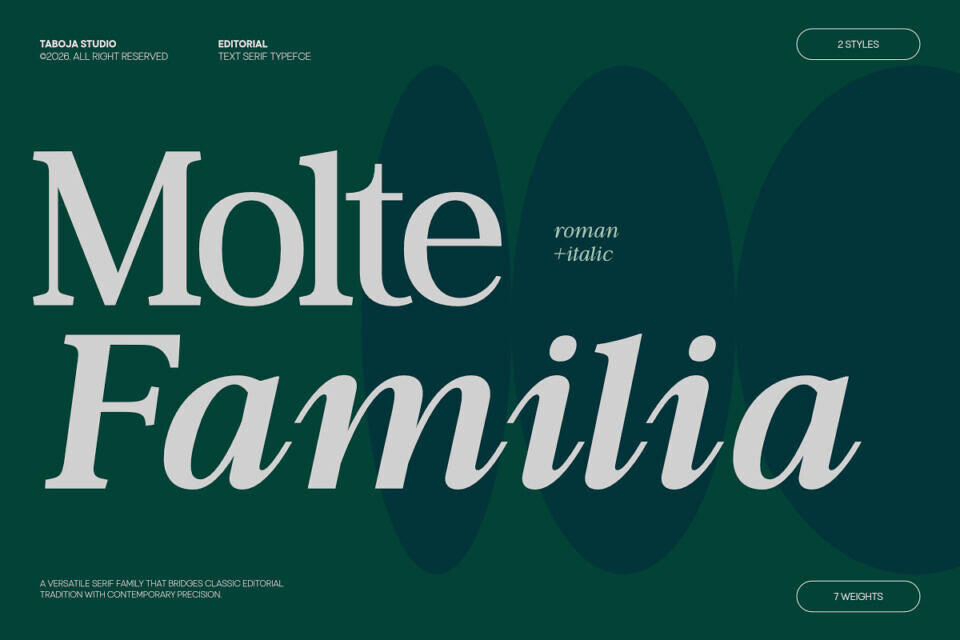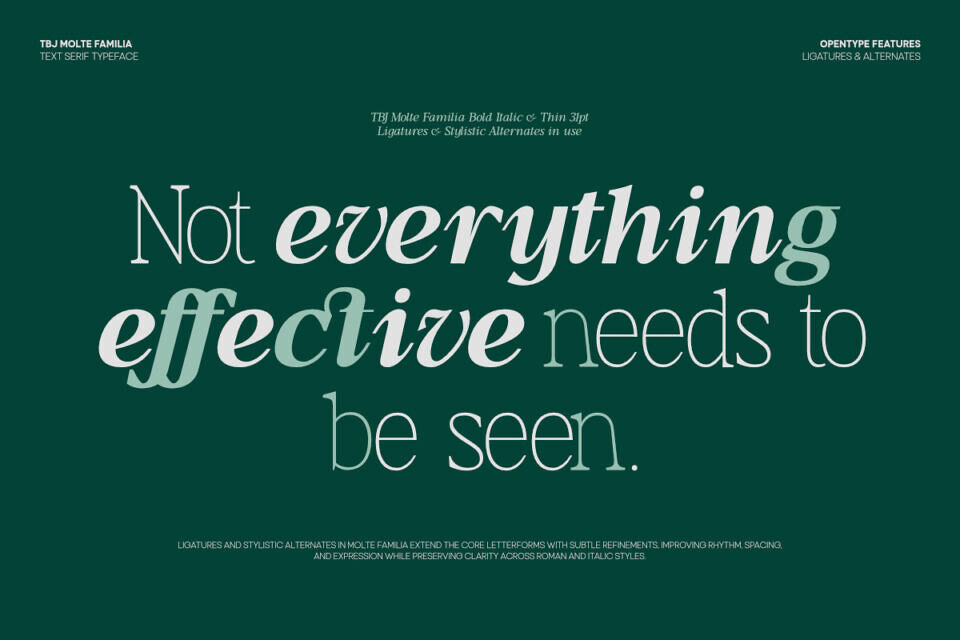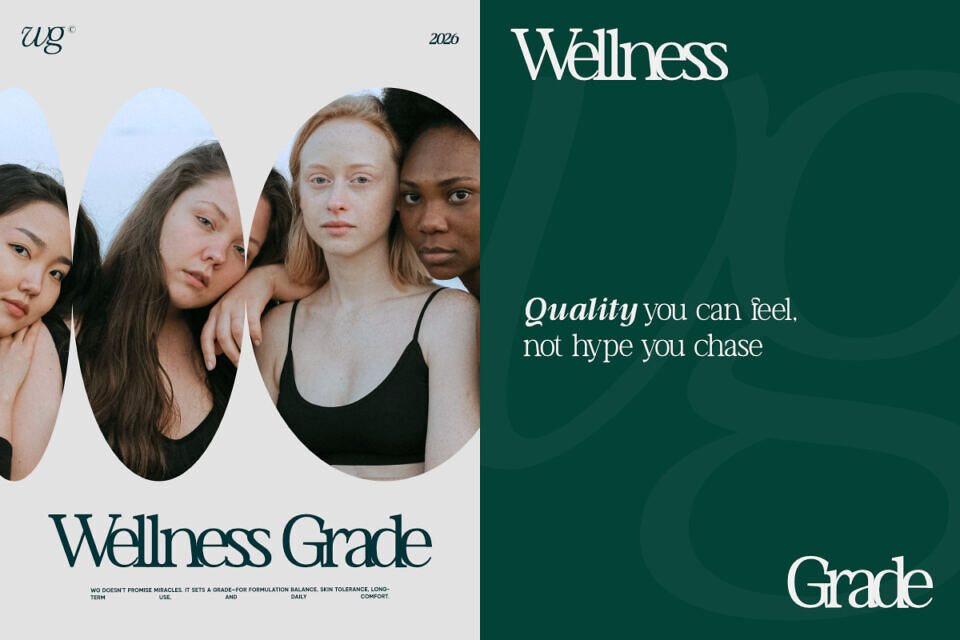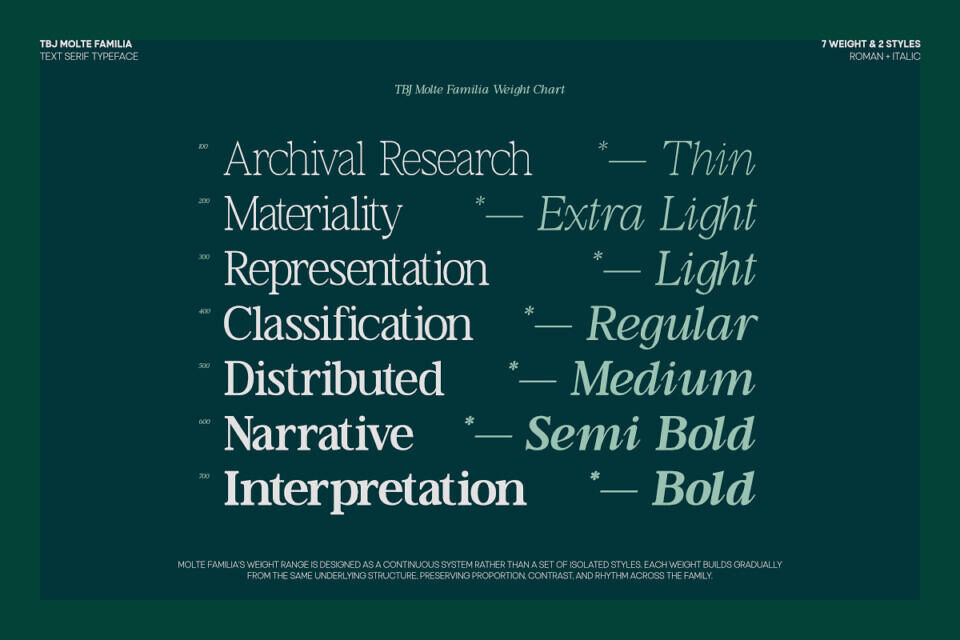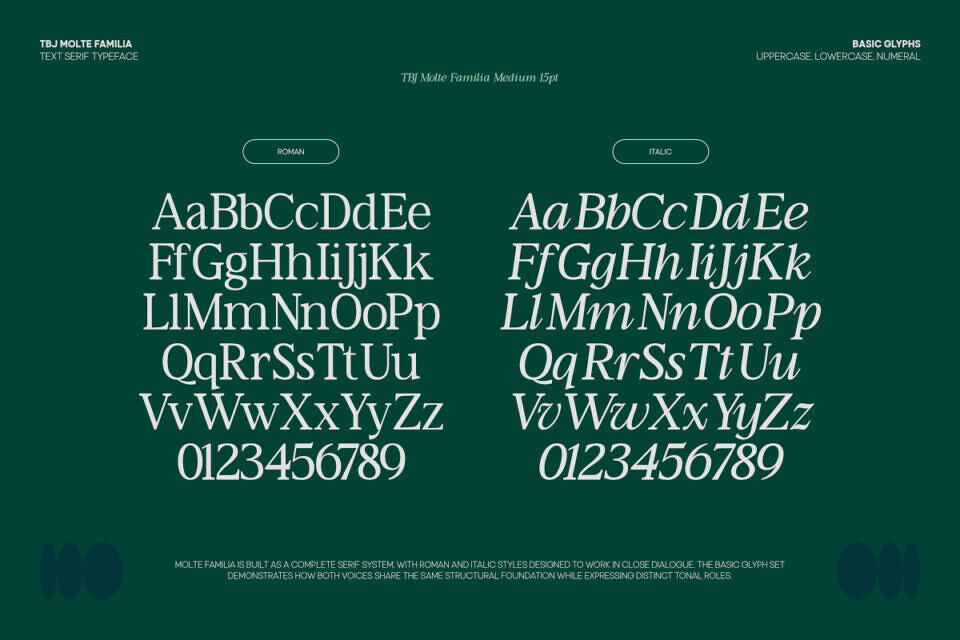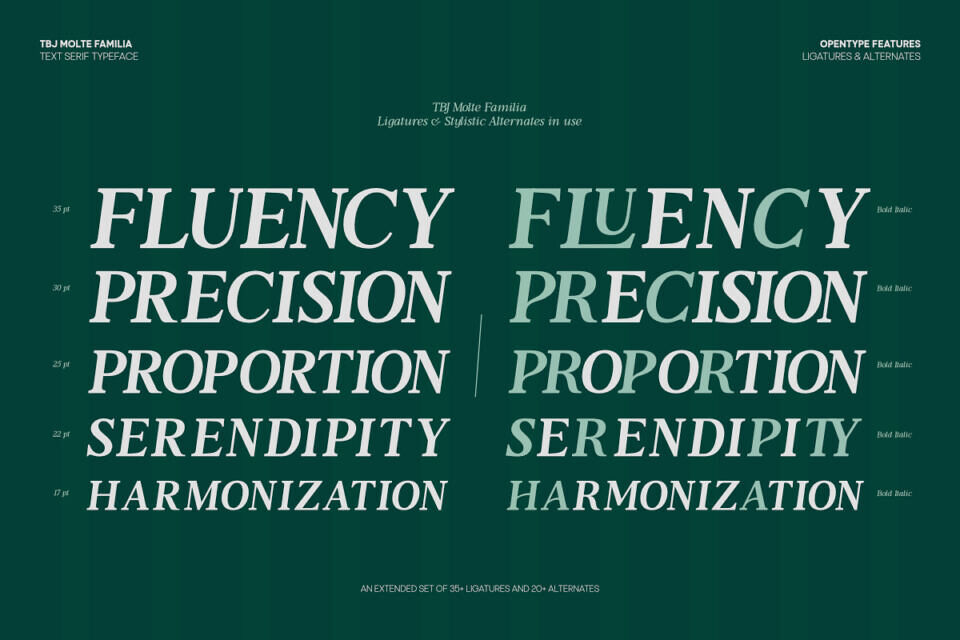
TBJ Moltefamilia is a refined serif typeface that blends timeless elegance with contemporary finesse. Crafted with carefully sculpted serifs, balanced proportions, and a touch of character, this font communicates with sophistication and clarity across a wide range of creative applications.
With its graceful curves and considered contrast, TBJ Moltefamilia becomes a versatile choice for editorial layouts, branding, book covers, logos, and luxury packaging. Offered in both Display and Text styles each designed with distinct optical adjustments it ensures optimal beauty and readability whether used in grand headlines or extended reading experiences.